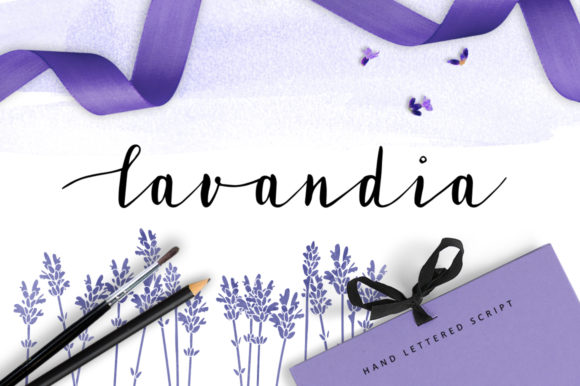
In a world of digital expressions, let Lavandia Font be your canvas of creativity. From Tabita's Shop, this enchanting script font carries a magical touch that dances across your designs, leaving a trail of sophistication and elegance.
Lavandia is the embodiment of handwritten beauty, effortlessly flowing with a natural grace. Its soft, warm strokes evoke a sense of intimacy and warmth, creating a captivating connection with your audience. With every letter delicately crafted, Lavandia adds a personal touch that speaks volumes, making your designs truly unforgettable.
Step into a realm of artistic freedom as you explore the endless possibilities of Lavandia. Its enchanting curves and playful ligatures invite you to create designs that resonate with emotion and authenticity. Whether you're crafting heartfelt invitations, enchanting logos, or captivating social media posts, Lavandia will elevate your creations to new heights of visual allure.
Experience the versatility of Lavandia as it seamlessly adapts to a symphony of design styles. From classic and timeless to modern and whimsical, Lavandia effortlessly blends into your vision, becoming an integral part of your creative narrative. Its ability to effortlessly harmonize with various elements ensures that your designs maintain a cohesive and enchanting flow.
Unleash your imagination and let Lavandia's magic transform your ordinary words into captivating works of art. Its distinct character breathes life into your designs, adding a touch of elegance and charm that captures attention and ignites conversations. Prepare to be mesmerized as Lavandia weaves its enchanting spell, leaving an indelible mark on the hearts of your audience.
Embrace the beauty of Lavandia Font and embark on a creative journey where your designs blossom with grace and elegance. Experience the magic of handwritten artistry as you create captivating designs that leave a lasting impression. Let Lavandia's allure ignite your creativity and transport you to a world of boundless artistic possibilities.